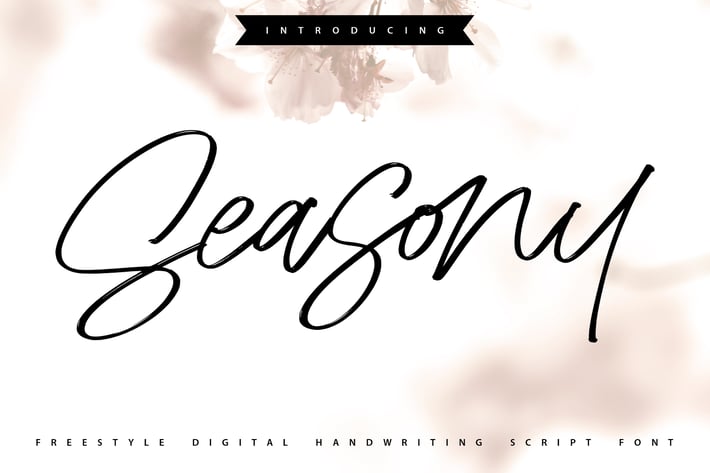
Seasony | Freestyle Handwriting Scipt Font
Seasony | Freestyle Handwriting Scipt Font with a calligraphy style, So beautiful on invitation like greeting cards, branding materials, business cards, quotes, posters, and more!